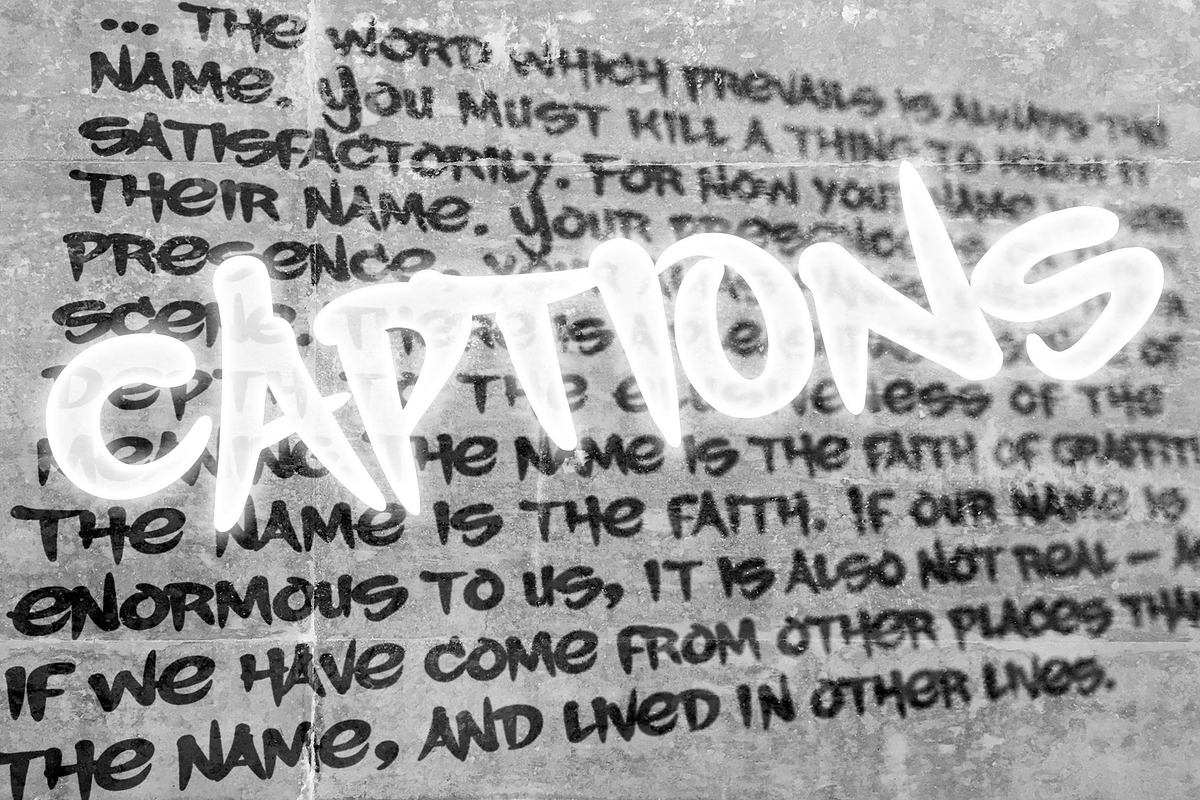
Captions Graffiti Font Family Free Download
Captions Graffiti Font Family Free Download is a bold and expressive typeface collection inspired by authentic street art and tagging culture. With multiple styles—ranging from clean outlines to drippy fills and wildstyle letterforms—this graffiti font family is perfect for urban branding, music covers, streetwear designs, event posters, and digital art that demands raw attitude.
Each variation in the Captions Graffiti Font Family Free Download brings a unique vibe, allowing you to mix and match styles for layered, custom graffiti effects. Whether you're going for a clean throw-up look or a chaotic, rebellious design, this font family gives you the tools to replicate real street energy.